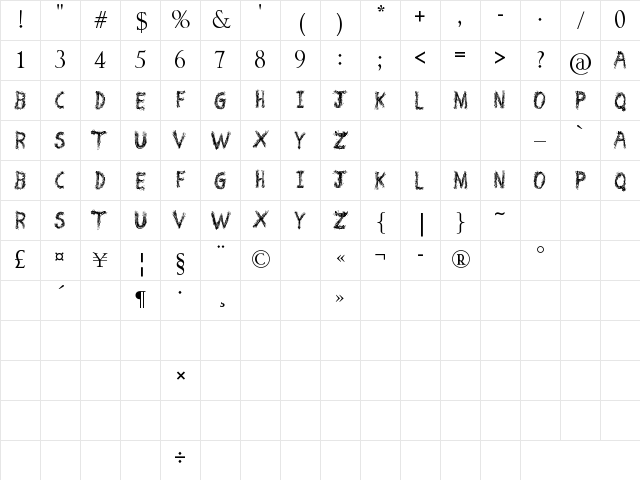
Spray Break Regular
Complete Spray Break Regular glyph index. Displaying only characters natively supported by Spray Break Regular font.
Design Context for Spray Break
Spray Break is a composed and adaptable typeface that performs quietly and consistently across a wide range of design contexts.